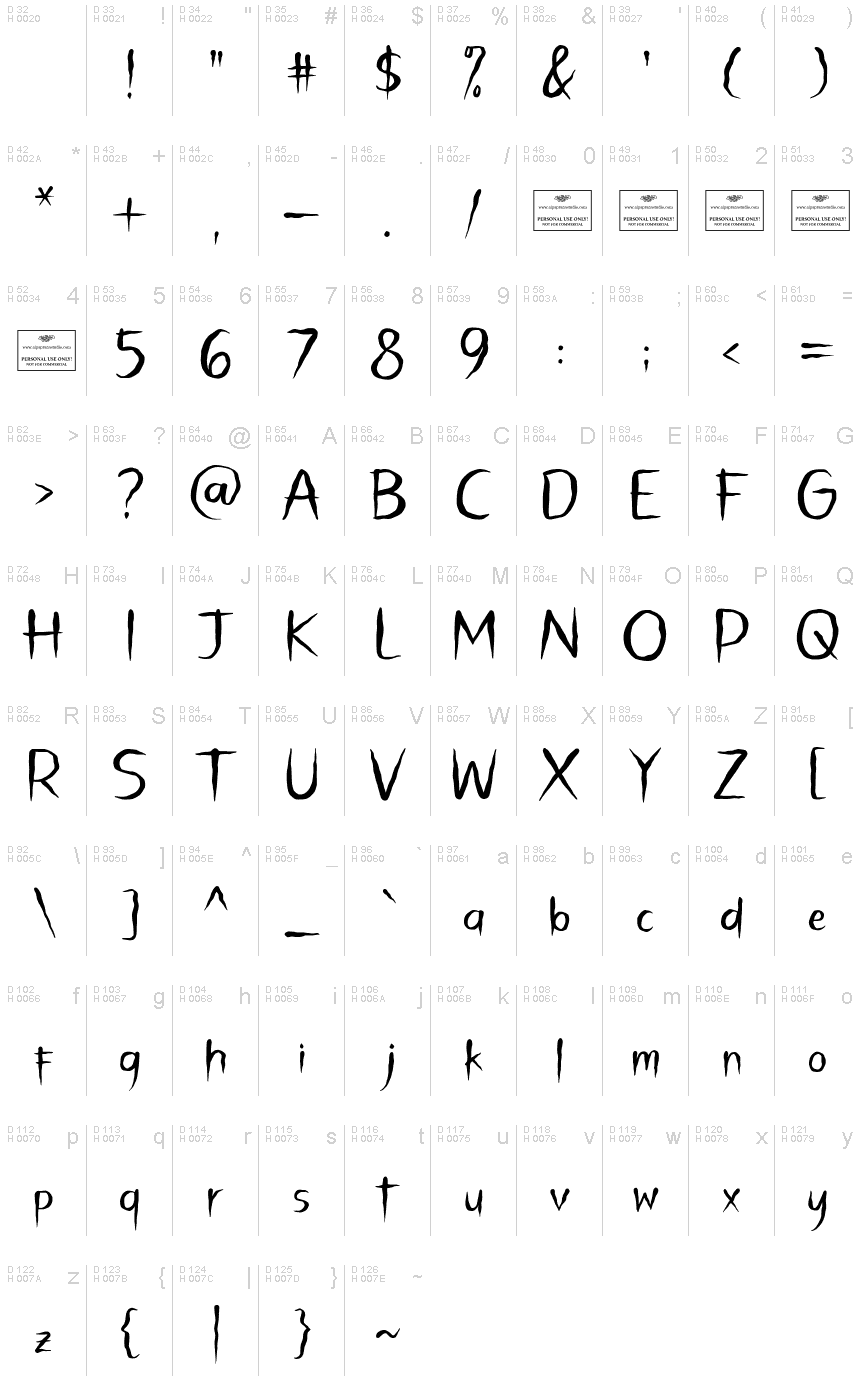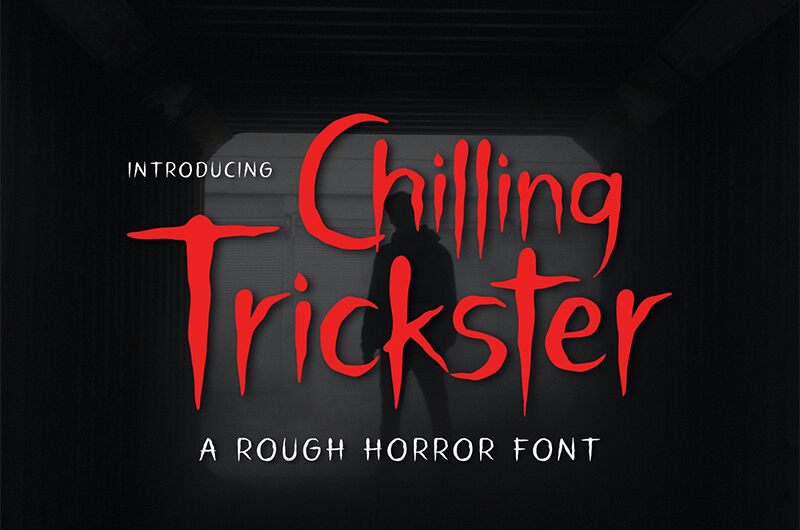
Chilling Trickster
Chilling Trickster, designed by Alpaprana Studio, is a semi-light display font that exudes an eerie and unsettling vibe. With its rough edges and horror-inspired aesthetics, this font is perfect for a wide range of creative projects.
Whether you're working on branding, logo design, lettering, or logotypes, Chilling Trickster will add that extra touch of darkness and intrigue. It's also well-suited for clothing designs, posters, magazines, packaging, shopping bags, t-shirts, book covers, photography projects, and special events.
Let your imagination run wild with Chilling Trickster as you bring your spooky visions to life in a captivating and chilling way.